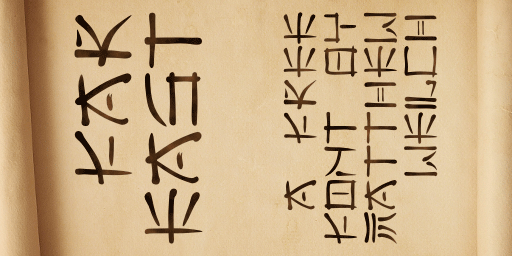
Font name: | Far East |
Author: | Matthew Welch |
Note by Matthew Welch | |
Amaze your friends. Astound people with your linguistic Acumen. Explain to them that on a recent trip to the far east you discovered the secret of easily understanding this writing. Then simply tilt your head to the left and read it plain as day. You see, this font is really just the Latin alphabet made to look like an exotic far east script and tilted on its side. Use all caps to achieve this effect and write your text vertically, from bottom to top. You can also write things out horizontally, which is easier for graphics programs or if you just want to write with this font normally. But what fun would that be? The right side up characters are lower case. |